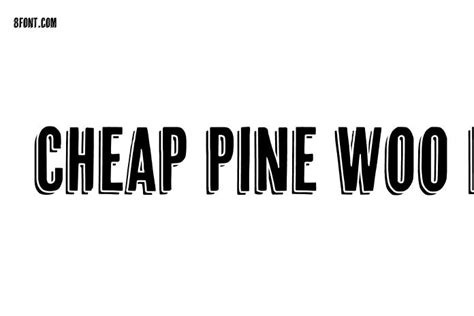
Cheap Pine Font. Web cheap pine is a nice one weight typeface in upper case. Looking for cheap pine regular fonts?
Designed by hannes von döhren. Web cheap pine is a nice one weight typeface in upper case. Use the controls below to customize your text string and its. It is a roughly drawn, condensed font and has a printed hand made. Click to find the best 1 free fonts in the cheap pine regular style. Looking for cheap pine regular fonts? Web cheap pine | adobe fonts. Renowned typeface designer hannes von döhren designed cheap pine as a tribute to the woodcut fonts of.
Web cheap pine is a nice one weight typeface in upper case. Renowned typeface designer hannes von döhren designed cheap pine as a tribute to the woodcut fonts of. Designed by hannes von döhren. Looking for cheap pine regular fonts? Click to find the best 1 free fonts in the cheap pine regular style. Web cheap pine is a nice one weight typeface in upper case. Use the controls below to customize your text string and its. Web cheap pine | adobe fonts. It is a roughly drawn, condensed font and has a printed hand made.